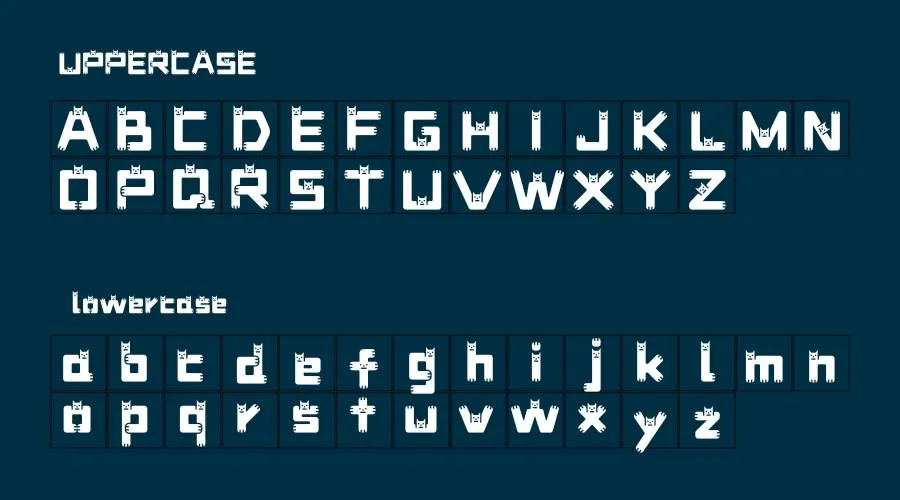
About Dust Demon Font
Dust@fonts developed Dust Demon Font it is a techno typeface. The text style has upper- and lower-case characters. The design of the font is quite similar to the cat-like edges of the alphabet designed like cat paws and the cat face is structured on the top of the alphabet.
Multiple display designs can make use of its innovative classic style appearance. If you combine it with another desiree becker font, it looks fantastic.